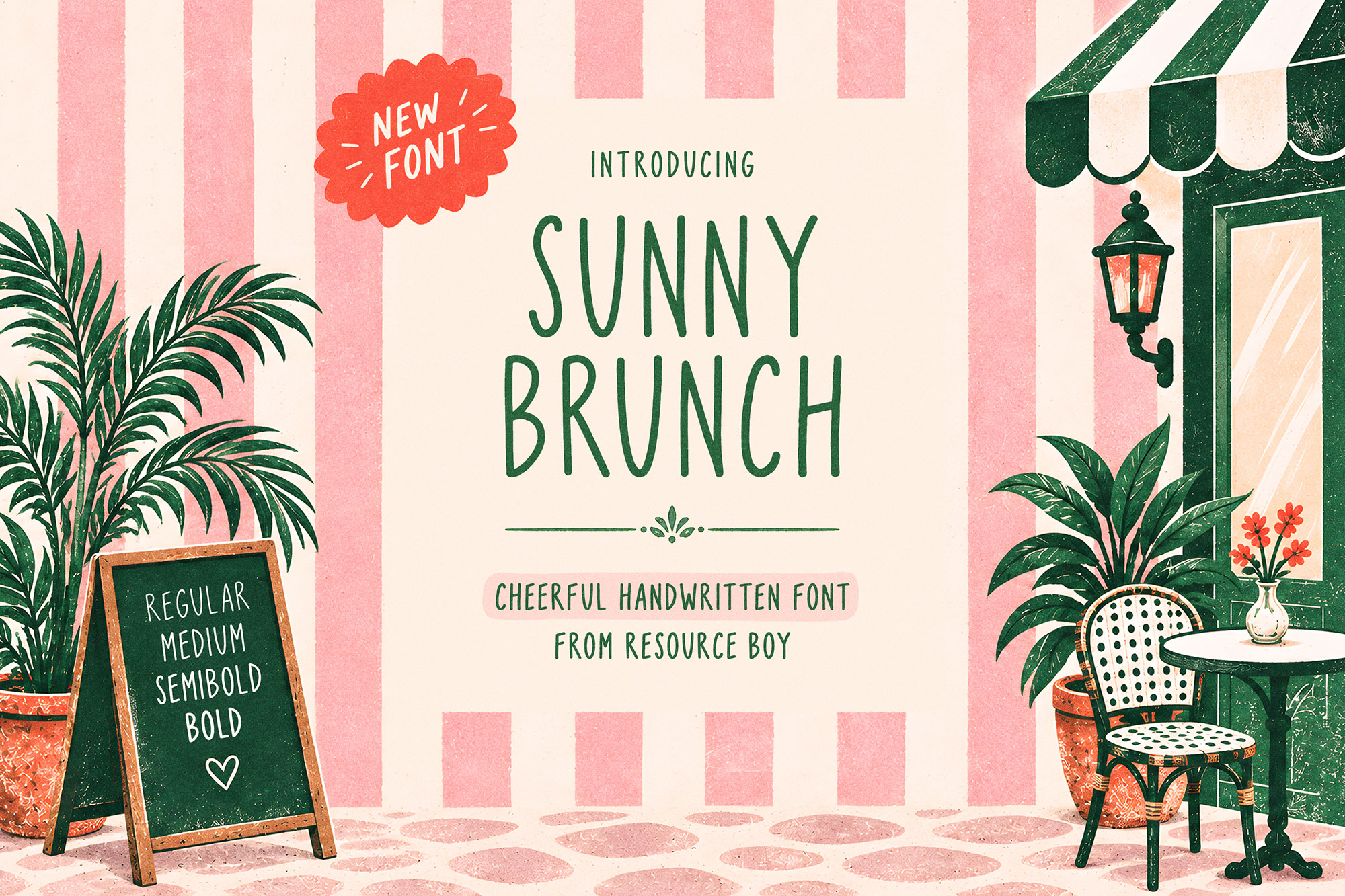
Sunny Brunch
Sunny Brunch is a casual handwritten font with tall, slender forms and a loose, hand-drawn rhythm. The subtle variations between letters give it an organic feel that suits display typography, from posters and menus to packaging, labels, branding, and social media artwork.
Available in Regular, Medium, SemiBold, and Bold, the family offers a useful range of weights while keeping the same relaxed character throughout. Sunny Brunch is distributed under the SIL Open Font License 1.1, with personal and commercial use permitted under the license terms.